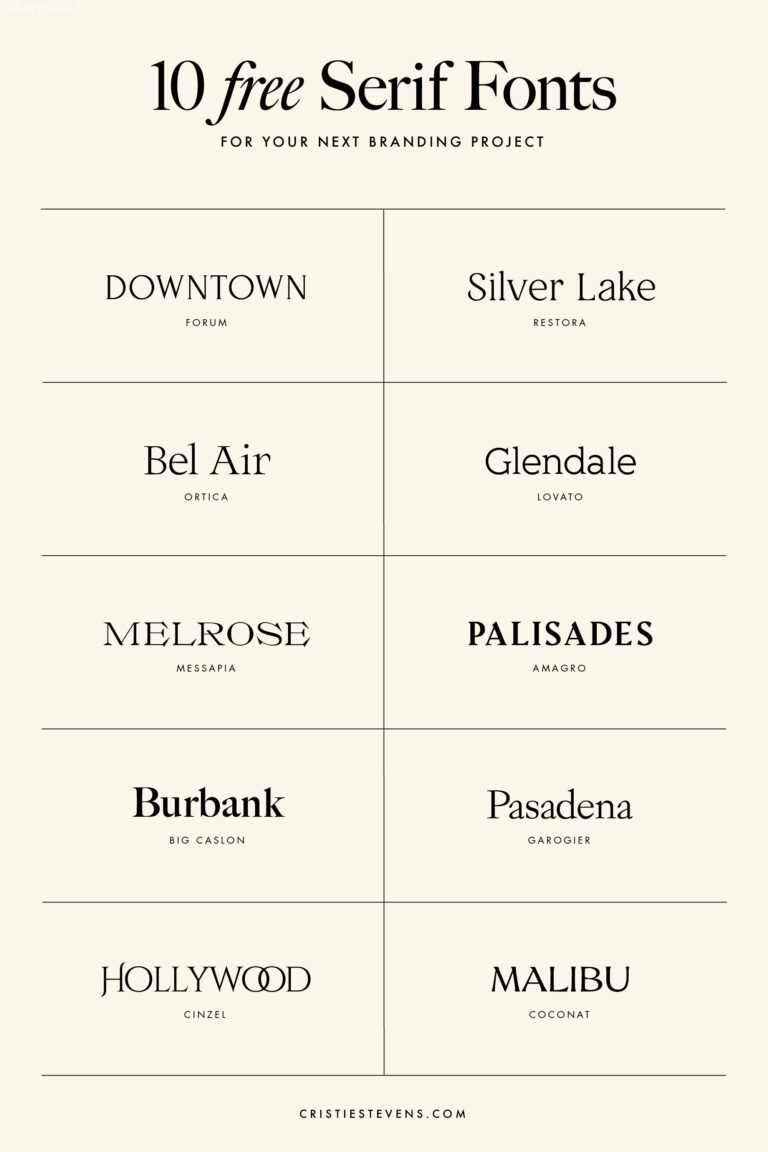
Sophisticated Serif: The Timeless Elegance Of Serif Fonts
Title: Unveiling the Charm of Serif Fonts: Elevate Your Graphic Design Game
Introduction:
In the world of graphic design, choosing the right font is crucial for creating visually captivating and effective designs. While there is a wide array of fonts available, one style that has stood the test of time is the elegant and versatile serif font. In this article, we will explore the beauty and functionality of serif fonts, shedding light on why they continue to be a popular choice among designers. Get ready to discover the captivating world of serif fonts and discover how they can elevate your graphic design projects.
1. Origins and Definition:
Serif fonts originated in the 15th century with the advent of movable type. The term serif refers to the small decorative strokes, or feet, on the ends of each letterform. This unique characteristic sets serif fonts apart from their sans-serif counterparts, which lack these embellishments. The serifs lend a sense of elegance, tradition, and readability to the text, making serif fonts a top choice for many graphic designers.
2. Readability and Legibility:
One of the primary advantages of using serif fonts is their exceptional readability. The carefully designed, minimalistic serifs guide the reader’s eye along the text, resulting in a smoother and more effortless reading experience. This ease of reading is especially beneficial for large blocks of text, such as in books, magazines, and websites. Serif fonts are also known for their legibility, particularly in print materials, as the serifs provide distinct termination points for letterforms, ensuring each character remains distinguishable.
3. Classic Elegance and Timelessness:
Serif fonts are often associated with a sense of sophistication and class, making them an excellent choice for projects that require a touch of elegance. Their timeless appeal transcends trends, ensuring that your designs will remain relevant and visually pleasing even after years have passed. Whether you’re working on a logo, website, or print media, using serif fonts can help convey a sense of professionalism and refinement while maintaining an approachable aesthetic.
4. Versatility and Pairing with Sans-Serif Fonts:
Contrary to popular belief, serif fonts are not limited to traditional or formal designs. They can seamlessly adapt to various styles, from modern to vintage, depending on the specific typeface chosen. Moreover, serif fonts often pair brilliantly with sans-serif fonts, creating visually striking and complementary combinations. This pairing allows you to establish a clear visual hierarchy within your design, where the serif font conveys essential information or headlines, while the sans-serif font provides clarity and simplicity in supporting text.
5. Widely Used Serif Fonts:
Several well-known serif fonts have become staples in graphic design due to their versatility and aesthetic appeal. Some popular choices include:
– Times New Roman: Known for its legibility and classic look, Times New Roman is a widely recognized serif font, commonly used in academic and formal contexts.
– Georgia: Created specifically for on-screen readability, Georgia offers a refined and contemporary style, making it ideal for websites and digital content.
– Baskerville: With its distinctive elegance and high readability, Baskerville is often used in editorial designs and luxury branding.
– Garamond: Renowned for its timeless beauty and versatility, Garamond is a popular choice for a wide range of design projects, from book covers to invitations.
Conclusion:
Serif fonts continue to hold a special place in the world of graphic design due to their remarkable readability, timeless elegance, and adaptability. Whether you’re working on a branding project, website, or print media, incorporating serif fonts into your designs can add a touch of sophistication and enhance the overall visual appeal. Explore the vast selection of serif fonts available and experiment with combinations to discover the perfect pairing for your next creative venture. Embrace the charm of serif fonts and elevate your graphic design game to new heights!